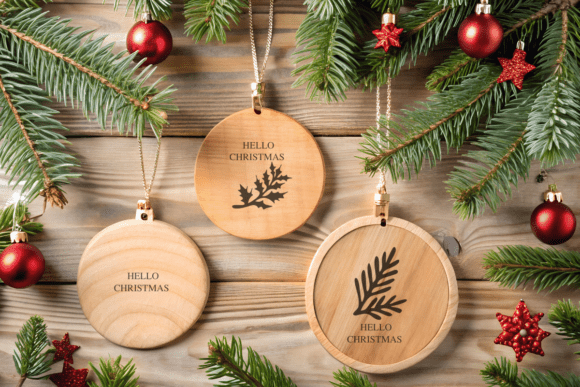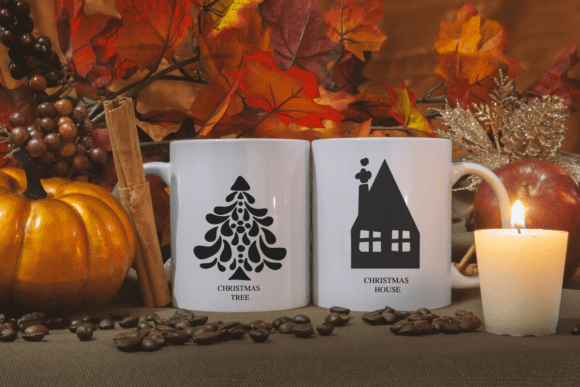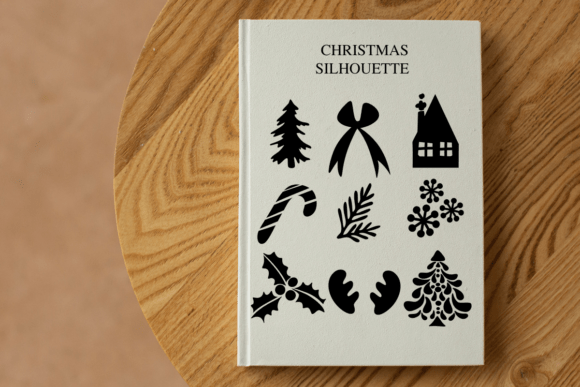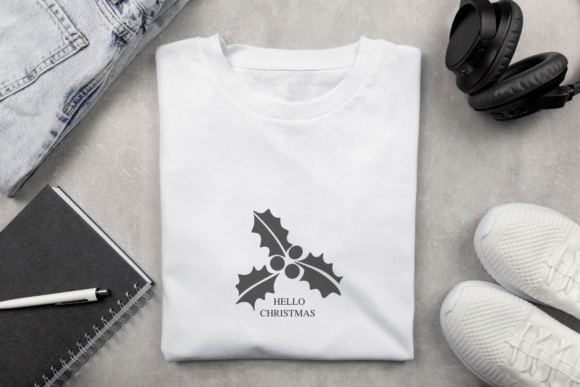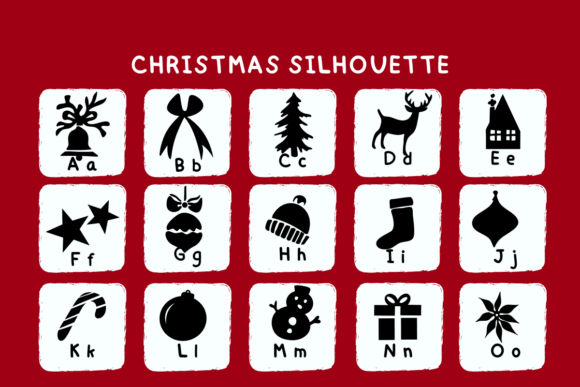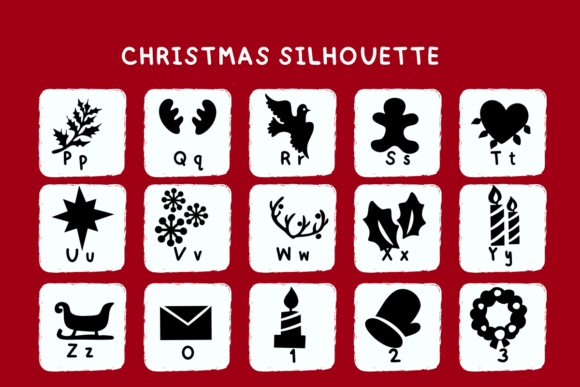
Christmas Silhouette Font: Spread Holiday Cheer with a Unique Dingbats Font
As the holiday season approaches, designers and crafters are on the lookout for creative ways to infuse their projects with a touch of festive cheer. If you’re looking to add a whimsical touch to your artistic endeavors, look no further than the Christmas Silhouette Font. This unique dingbats font is specifically designed to bring a sense of holiday magic to your creative ventures, making it the perfect addition to your design toolkit.
What is Christmas Silhouette Font?
Christmas Silhouette is a one-of-a-kind dingbats font that boasts a charming sketch-style aesthetic. The font features a range of festive icons, including Christmas trees, snowflakes, bells, and more, all designed to evoke the spirit of the holiday season. With its distinctive style, Christmas Silhouette Font is perfect for adding a touch of yuletide joy to a wide range of creative projects.
Ways to Use Christmas Silhouette Font
The versatility of Christmas Silhouette Font makes it an excellent choice for designers and crafters across multiple realms. Here are just a few ways you can use this festive font to elevate your creative projects:
- Wedding Invitations: Add a touch of holiday cheer to your wedding invitations with Christmas Silhouette Font. The font’s whimsical design is sure to delight your guests and set the tone for a festive celebration.
- DIY Projects: Give your DIY projects a distinctive style with Christmas Silhouette Font. From handmade crafts to home decorations, this font is perfect for adding a personal touch to your creations.
- Personalized Logos: Infuse your personalized logos with a jolly undertone using Christmas Silhouette Font. The font’s festive design is sure to make your brand stand out during the holiday season.
- Handmade Crafts: Add a sprinkle of holiday magic to your handmade crafts with Christmas Silhouette Font. From ornaments to gift tags, this font is perfect for creating unique and personalized items.
Benefits of Using Christmas Silhouette Font
So why choose Christmas Silhouette Font for your creative projects? Here are just a few benefits of using this unique dingbats font:
- Unique Design: Christmas Silhouette Font features a distinctive sketch-style aesthetic that is sure to set your projects apart from the crowd.
- Versatility: The font’s versatility makes it perfect for use across multiple realms, from wedding invitations to DIY projects.
- Festive Cheer: The font’s festive design is sure to bring a touch of holiday cheer to your creative projects.
Tips for Getting the Most Out of Christmas Silhouette Font
To get the most out of Christmas Silhouette Font, here are a few tips to keep in mind:
Christmas Silhouette Font is a unique and versatile dingbats font that is sure to bring a touch of holiday cheer to your creative projects. With its distinctive sketch-style aesthetic and range of festive icons, this font is perfect for designers and crafters across multiple realms. Whether you’re looking to elevate your wedding invitations, add a touch of yuletide joy to your DIY projects, or create personalized logos with a jolly undertone, Christmas Silhouette Font is the perfect choice. So why wait? Download Christmas Silhouette Font today and spread the Christmas sparkle all around!